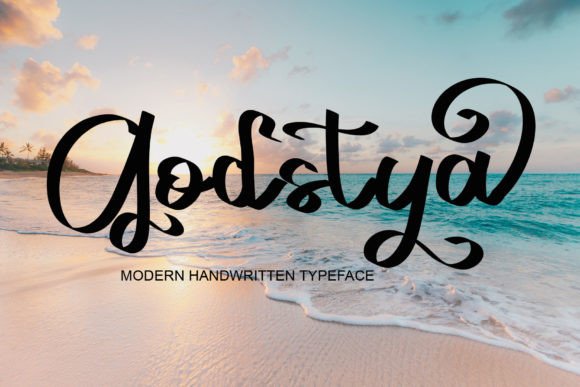
Step into the realm of modern calligraphy with Godstya, the script font that exudes effortless elegance. Each stroke, meticulously crafted by hand using a tablet, captures the allure of a handwritten masterpiece. Its simplicity, borne from careful deliberation, lends itself to a myriad of creative expressions.
Imagine your website adorned with Godstya's captivating curves, inviting visitors to delve into a world of visual delight. Let your wedding invitations whisper sweet sentiments in a font that mirrors the handwritten promises of your heart. Elevate your business cards with a touch of sophistication, where every letter speaks volumes about your professional demeanor.
Godstya's versatility extends beyond the digital realm. Its graceful strokes dance effortlessly across printed paper, transforming business cards, signatures, and advertisements into tangible works of art. Whether you seek to promote products or convey heartfelt messages, Godstya lends its timeless charm to every endeavor.
Beneath its unassuming facade lies a treasure trove of creative possibilities. Godstya's PUA encoding unlocks a world of glyphs and swashes, empowering you to unleash your imagination. Add a touch of whimsy to your designs, or let your creativity soar with elaborate embellishments.
With Godstya, you hold the key to unlocking a world of visual storytelling. Its timeless appeal and endless versatility empower you to craft designs that resonate deeply with your audience. Whether you seek to inspire, inform, or simply leave an unforgettable impression, Godstya is the font that will elevate your creations to new heights of artistry.